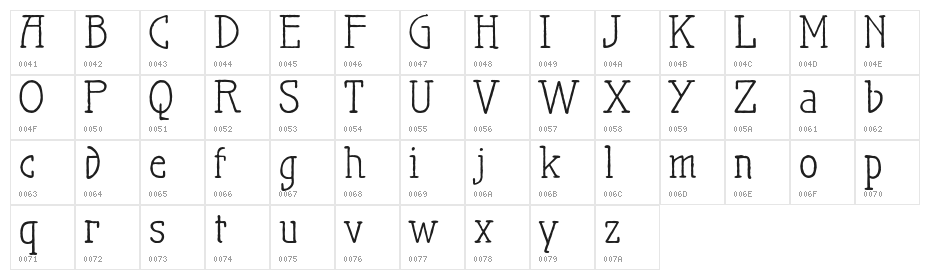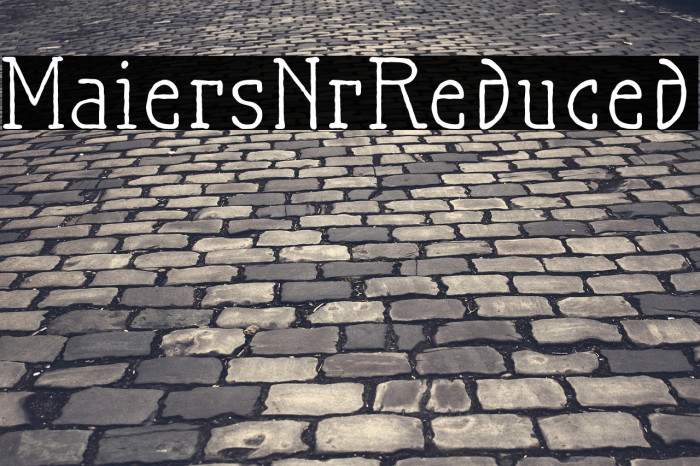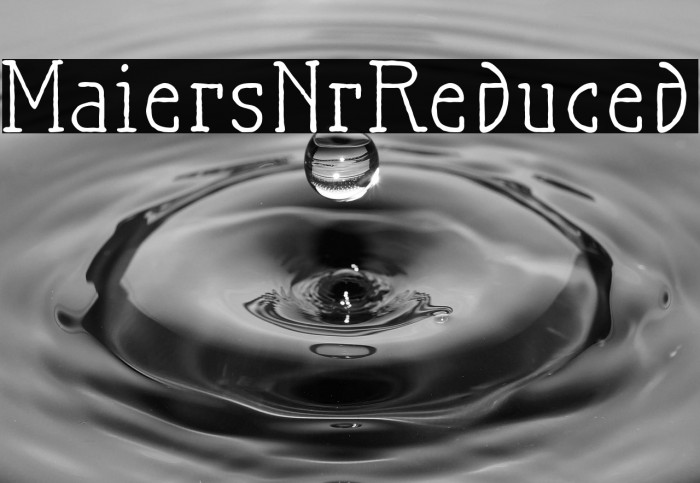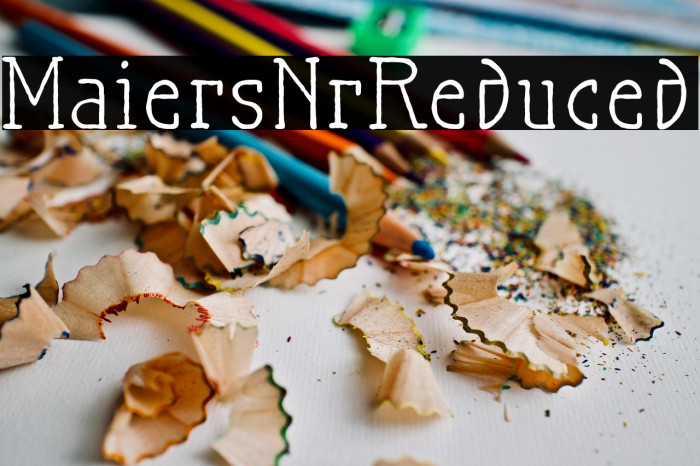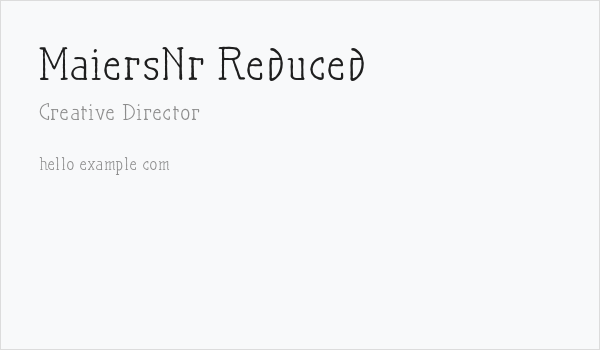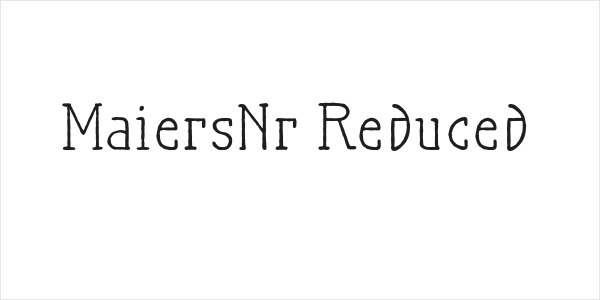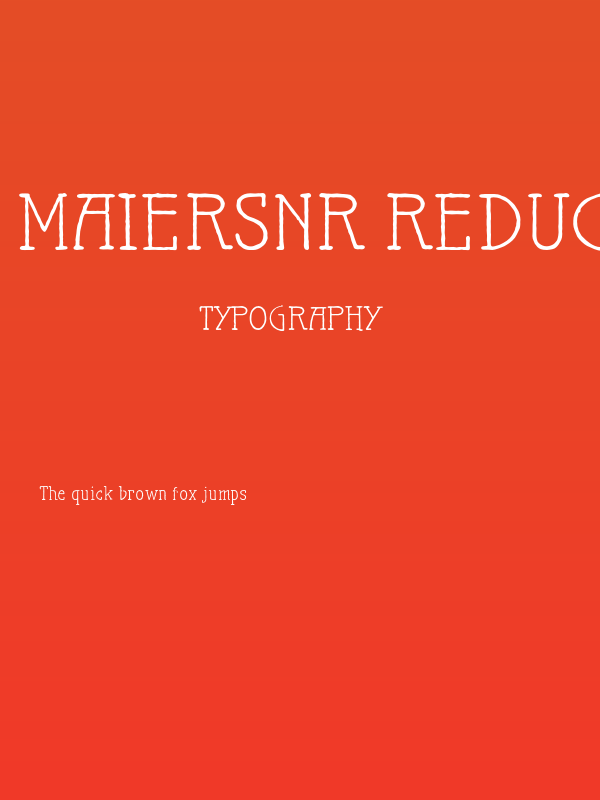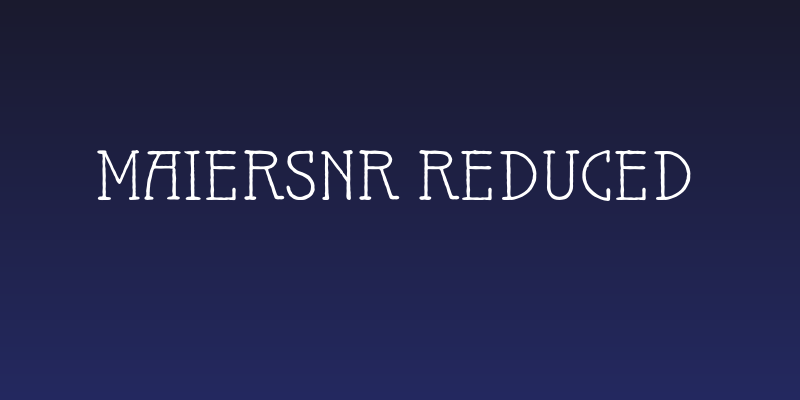
MaiersNr.Reduced Font
MaiersNr.Reduced Description
This font features a distinctive and artistic style, characterized by its hand-drawn appearance and unique letterforms. The uppercase letters exhibit a playful yet structured design, with varying stroke widths that add a sense of movement and dynamism. The lowercase letters maintain this artistic flair, with some characters featuring unexpected curves and angles that enhance the font's quirky personality. The numerals and special characters are consistent with this style, offering a cohesive look across all glyphs. This font's organic and slightly irregular shapes give it a handcrafted feel, making it ideal for projects that require a personal touch.